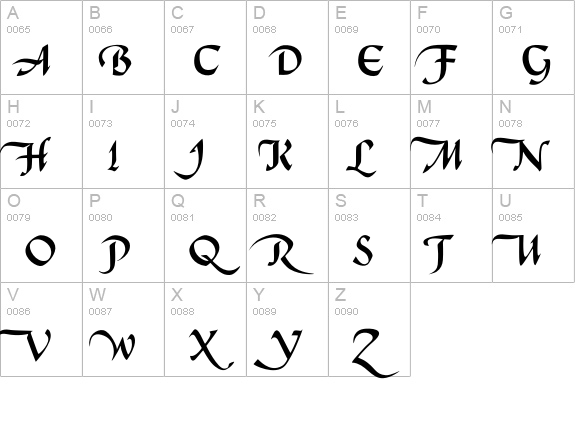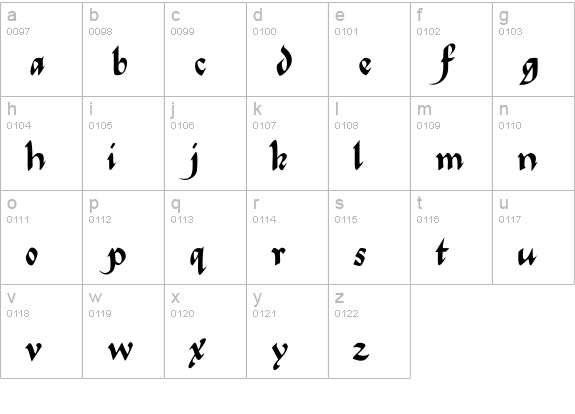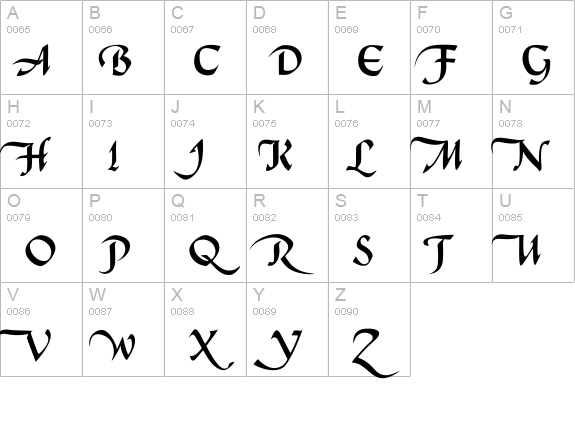
FlourishBoldSpecial Font Details
FlourishBoldSpecial font is a captivating and elegant typeface that exudes sophistication and charm. Its intricate flourishes and bold design make it perfect for adding a touch of luxury to any project. This font is ideal for creating stunning headlines, invitations, logos, and more. The eye-catching details of FlourishBoldSpecial font are sure to make your designs stand out and leave a lasting impression. The best part is that FlourishBoldSpecial font is available for free download at FontsMarket.com. With just a few clicks, you can enhance your designs with this beautiful font without having to spend a dime. Don't miss out on this opportunity to elevate your projects with FlourishBoldSpecial font - download it today and let your creativity flourish!